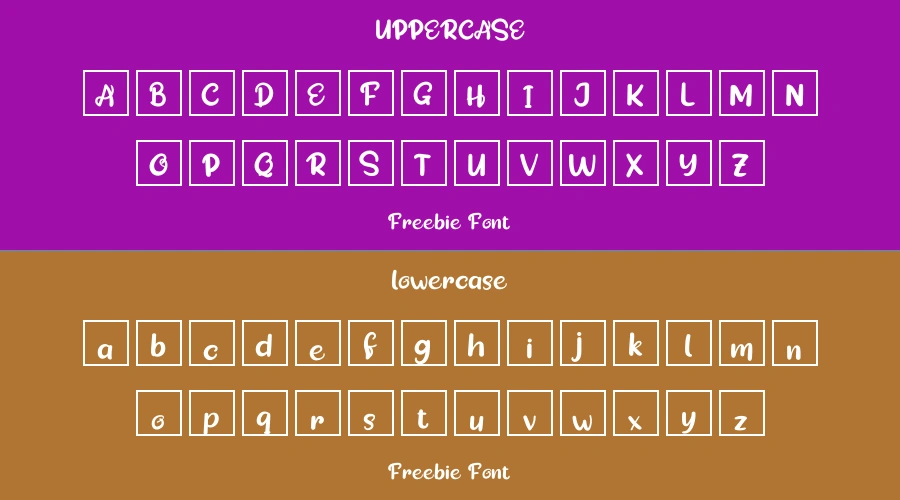
About Freebie Font
Freebie Font represents a sophisticated approach to type design, balancing artistic freedom with visual impact. Perfect for exhibition design, this font family showcases impressive precision and functional utility throughout its character set. Designers appreciate its versatility and reliability.
Designers will appreciate nuanced touches including ornamental details and oldstyle figures, adding sophistication to any project. These features become apparent in warning labels, where scanning accuracy matters most. The careful treatment of terminal style and market positioning ensures optimal performance.